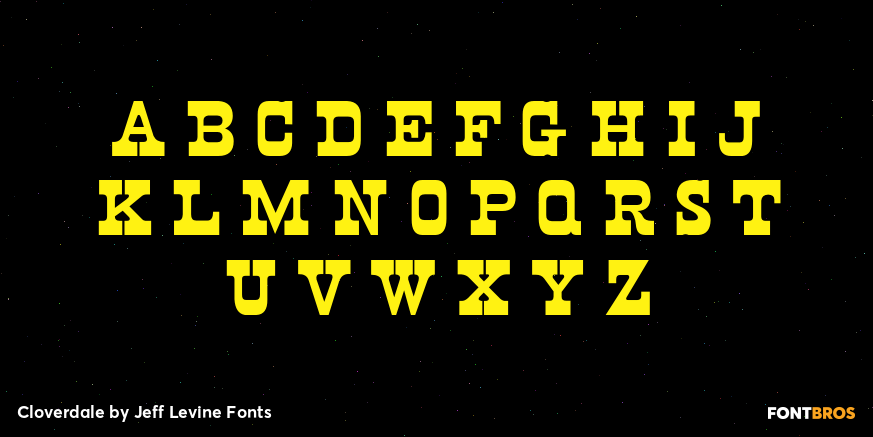
Cloverdale
Cloverdale JNL is another addition to Jeff Levine's revivals of classic wood type fonts from the 1800s. Bold, broad and in the "cowboy" style, this typeface goes well with projects featuring the Old West, Victorian times or old-fashioned nostalgia.